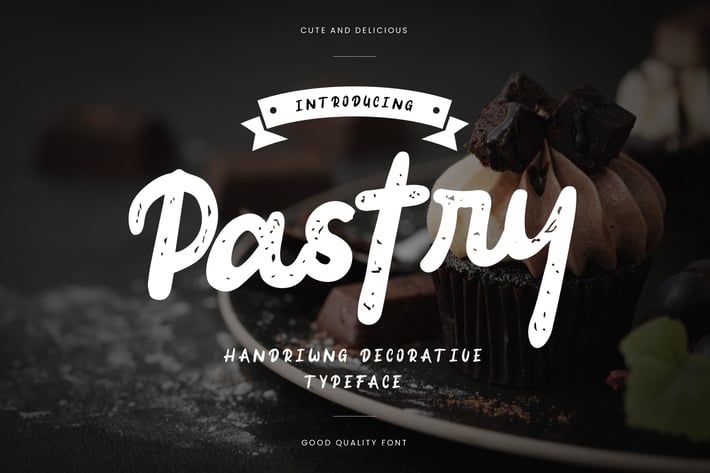
Pastry - Rusty Bold Script Font
naulicrea
Are you looking for a grunge bold script font? We can help! Try to download our pastry font. The font is suitable to use for all all purpose. Try to use it on Wedding invitation, greeting card, poster, quotes, postcard, photography, menu, badge, branding, editorial, and signature to see the best of it :)